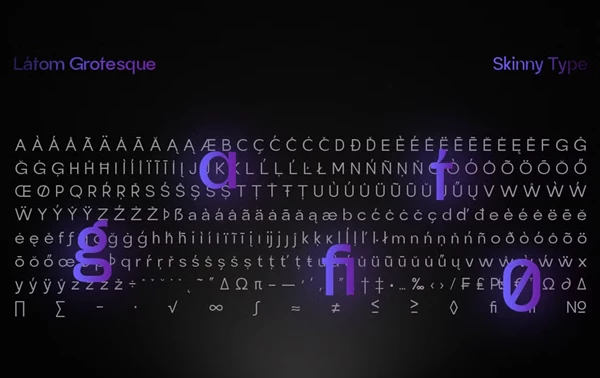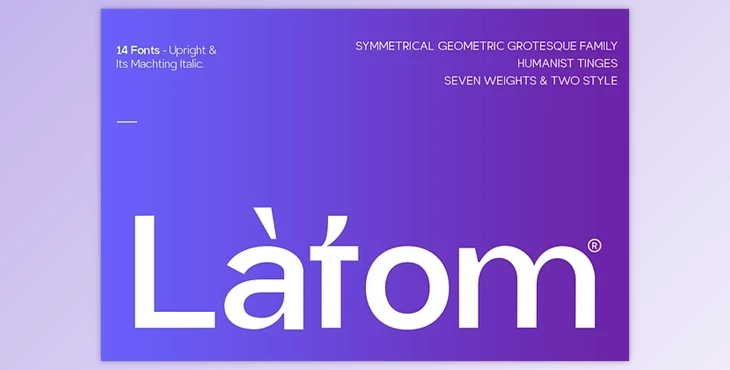
Latom Grotesque - Authentic Geometric Sans Serif Font Family: Introducing Latom Grotesque, a sleek and authentic sans-serif font family designed to elevate your typography game. With seven weights plus matching italics, this font family offers versatility and flexibility for various design projects.
Latom Grotesque combines simple geometry with subtle nuances, adding warmth and character to your text. Whether you're working on branding, magazines, posters, advertising, packaging, headlines, logos, web design, or print materials, Latom Grotesque is the perfect choice to make your text stand out.
Featuring 14 styles, including seven uprights and their corresponding italics, and 397 glyphs, this font family supports Latin-based languages and offers OpenType features, including ligatures, to enhance your typography even further.
Additionally, Latom Grotesque comes with a variable font option, which allows for greater flexibility in seamlessly adjusting weight and style.
Upgrade your designs with Latom Grotesque and bring a touch of modern sophistication to your projects with this versatile and stylish font family.